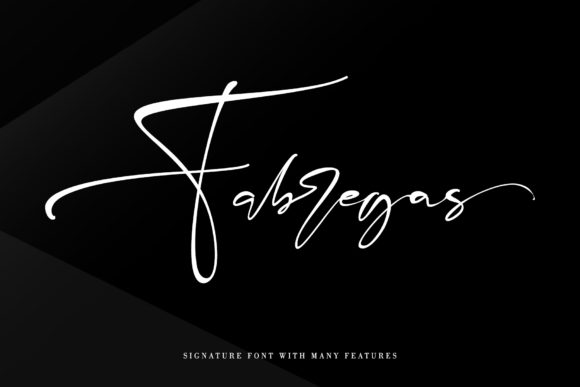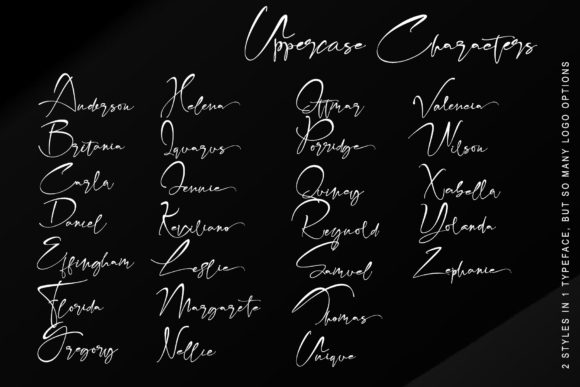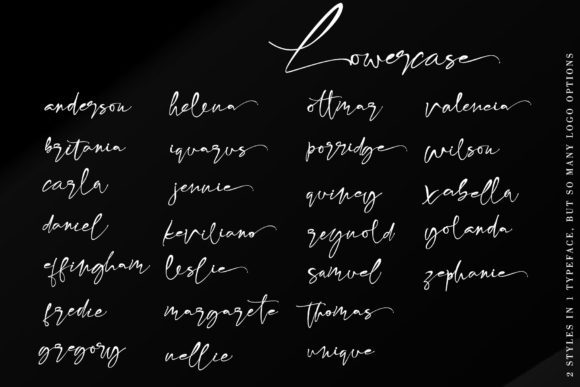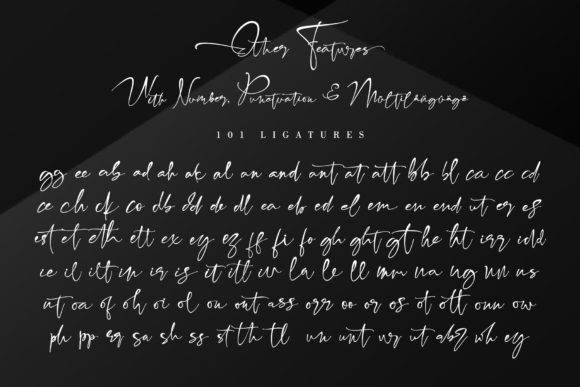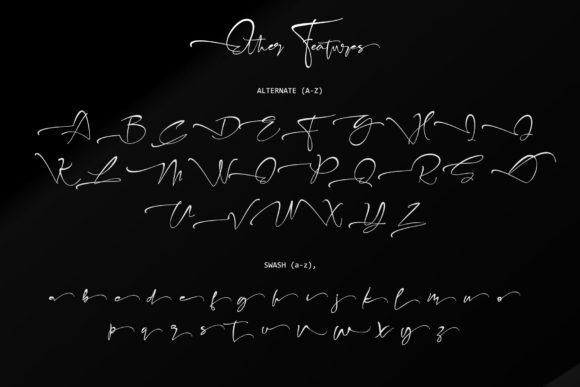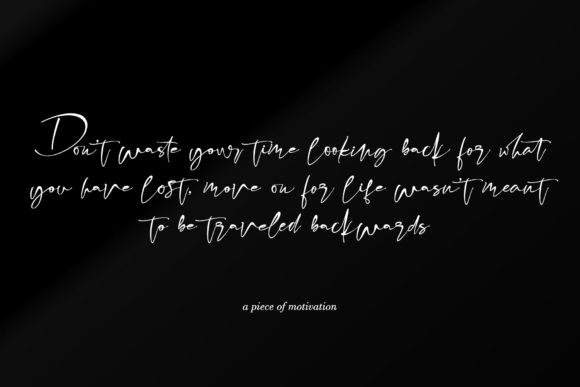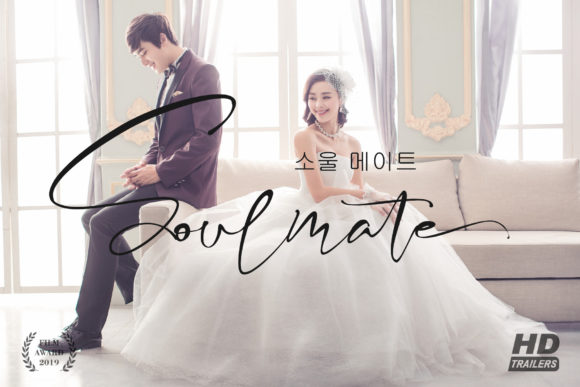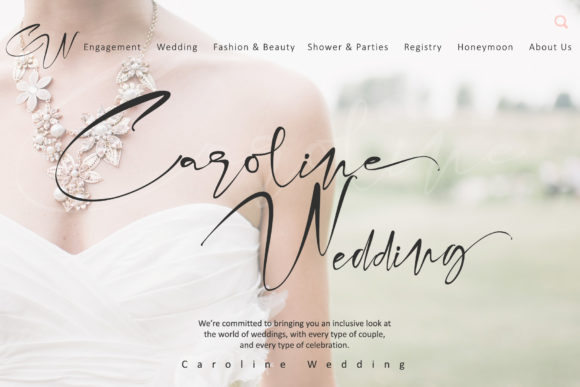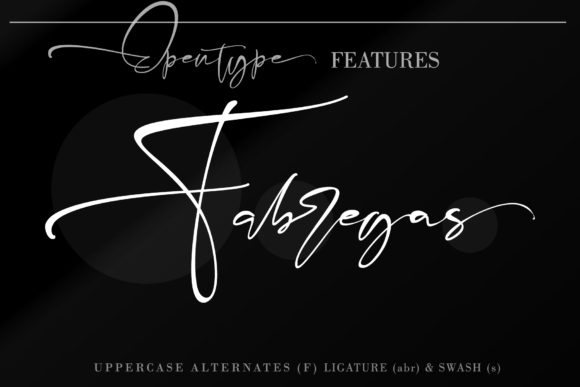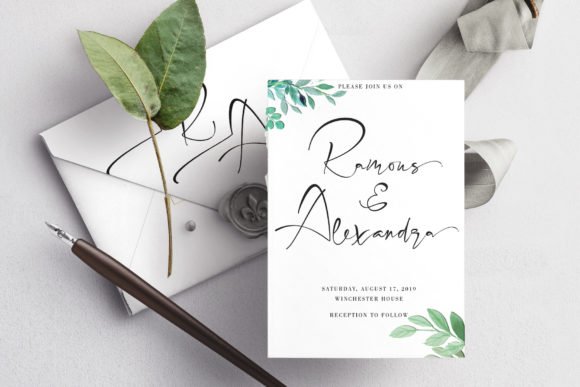
HomeScript FontsFabregas Font Script Fonts Fabregas Font FacebookXPinterestWhatsApp Fabregas Font Poster 2 Fabregas Font Poster 3 Fabregas Font Poster 4 Fabregas Font Poster 5 Fabregas Font Poster 6 Fabregas Font Poster 7 Fabregas Font Poster 8 Fabregas Font Poster 9 Fabregas Font Poster 10 Fabregas Font Poster 11 Fabregas Font Poster 12 Fabregas Font Poster 13 About Fabregas Font Fabregas is a handwritten signature font with a natural & stylish flow. DOWNLOAD ON CREATIVE FABRICAThis font is sold and delivered by Creative Fabrica. Font Canyon may earn a commission if you buy through this link. People also explored Beachy Dreams Cursive Handwriting Heart Font Stay Valentine Hellow Font Haunted Font Metroplex Angelic Font Greshian Font The Nightfall 335 0 TagsFabregas Font Previous articleDreaming FontNext articleMocking Bird Font LEAVE A REPLY Cancel reply Comment: Please enter your comment! Name:* Please enter your name here Email:* You have entered an incorrect email address! Please enter your email address here Website: Save my name, email, and website in this browser for the next time I comment. Personal Use Free Kinda Sweet Personal Use Free Read more about this font Planet Benson 2 Personal Use Free Read more about this font Letter Clips Personal Use Free Read more about this font Tanpax Personal Use Free Read more about this font BLOG Exploring Font Trends Shaping Communication in the Digital Era Fonts, like all design elements, are subject to trends. They play a crucial role in communicating a brand's personality,... To increase your work productivity, choose the most readable fonts. Modern Sans-Serif Fonts That Brands Love in 2025 How to Install and Use Fonts on Windows, macOS, and Web Projects